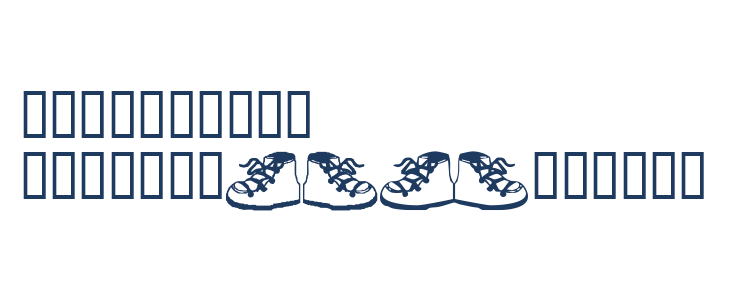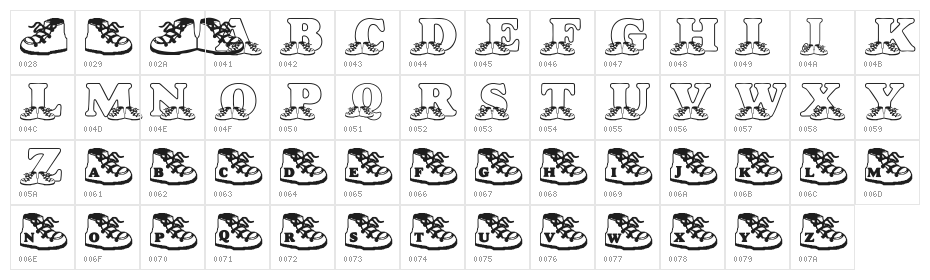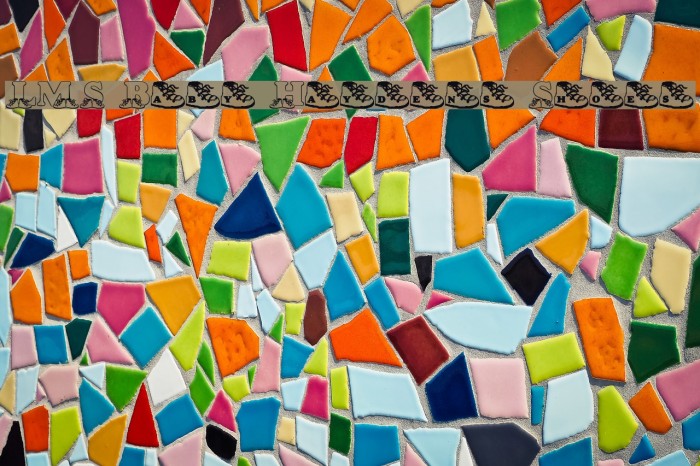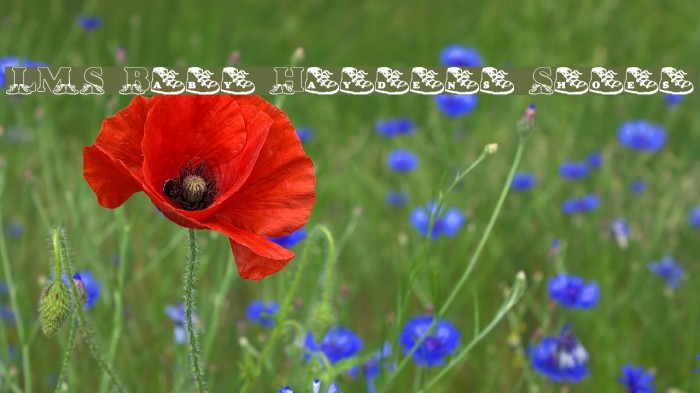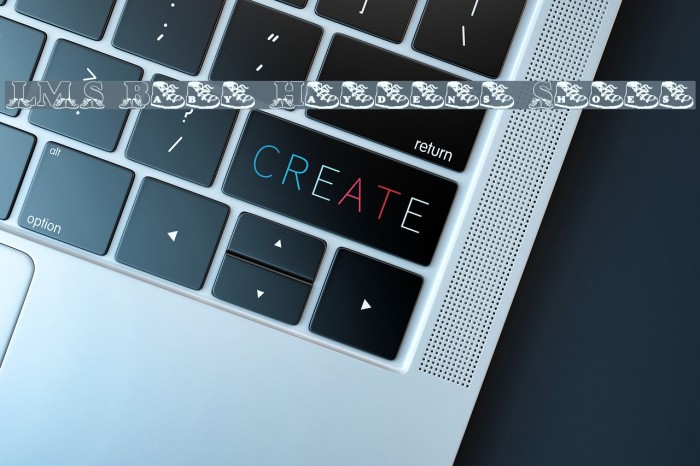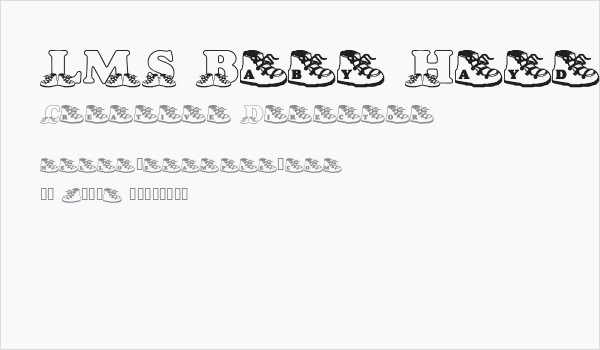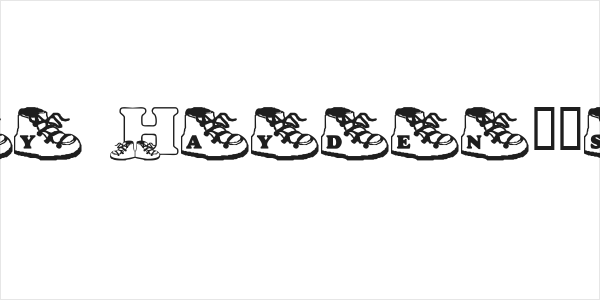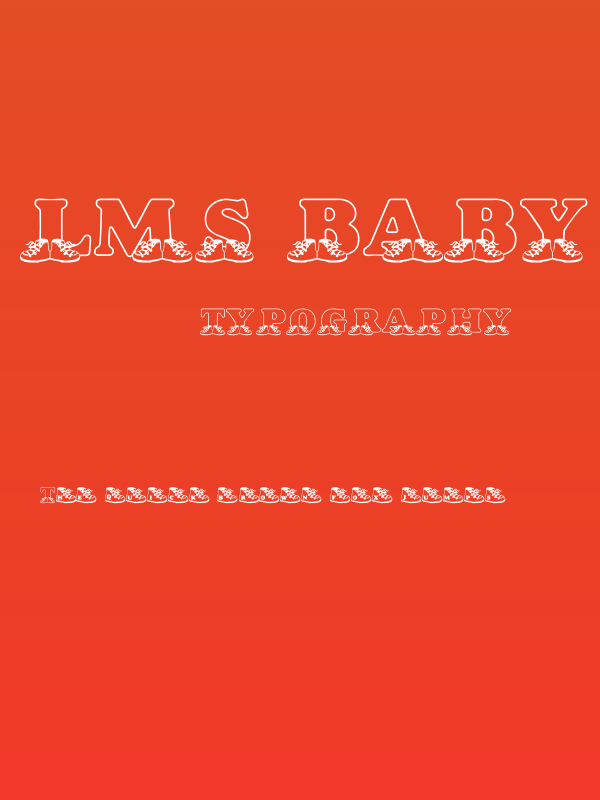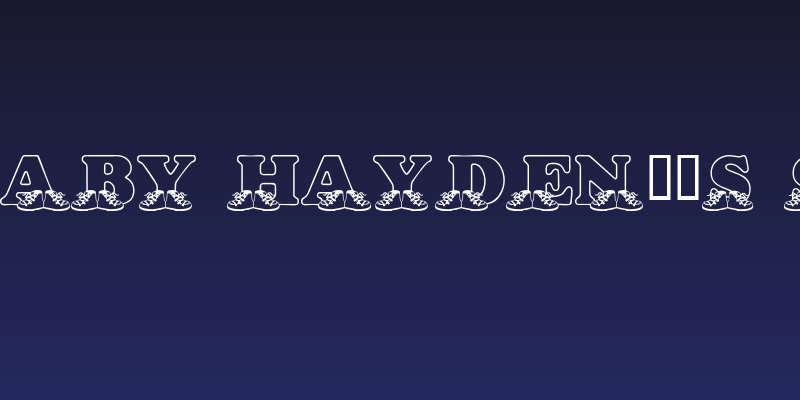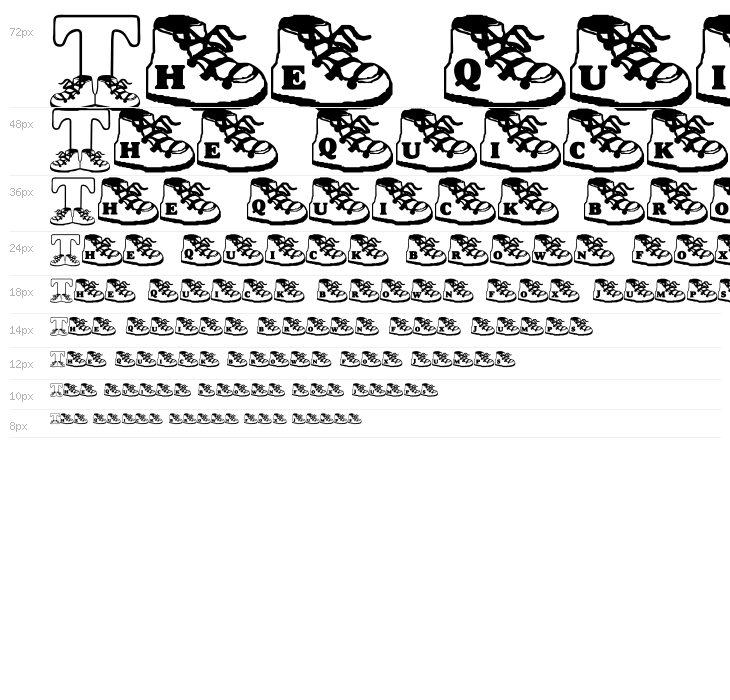
LMS Baby Hayden's Shoes Font
LMS Baby Hayden's Shoes Description
This playful and whimsical font features each letter adorned with a charming pair of baby shoes, creating a unique and endearing design. The uppercase letters are bold and prominent, with a decorative style that adds a touch of innocence and fun. The lowercase letters maintain the same playful theme, ensuring consistency throughout the typeface. The numbers and special characters are also integrated with the shoe motif, making this font ideal for projects that require a lighthearted and youthful touch. The overall design is perfect for children's products, nursery decorations, or any project aiming to evoke a sense of childhood joy.
| Use Case | Headlines, Logos, Decorative Text |
| Proposed Projects | Ideal for children's books, nursery decor, baby shower invitations, and playful branding. |